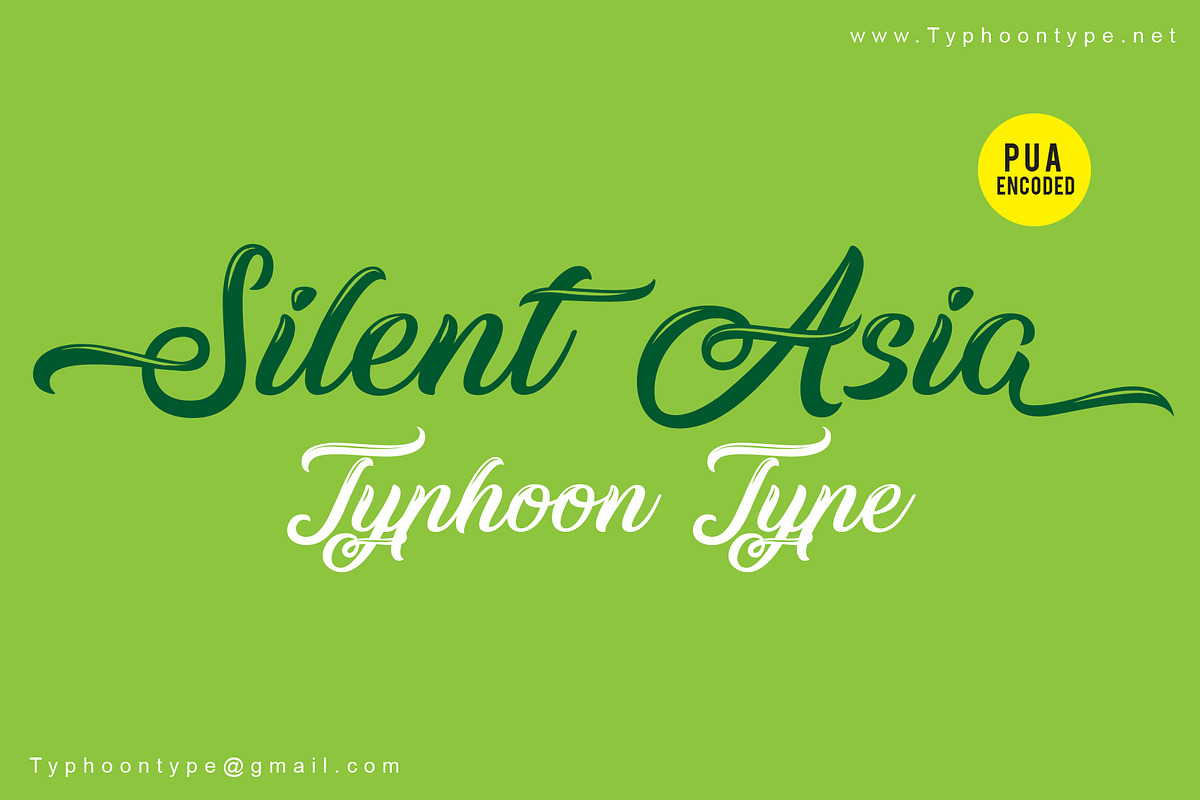
Silent Asia font
Silent Asia This Font perfect for logos, name tag, advertising, product packaging, clothing, social media & greeting cards.
Why Silent Asia font is worth a look
Silent Asia font by TyphoonStudio fits naturally into Branding, posters, packaging, typography.